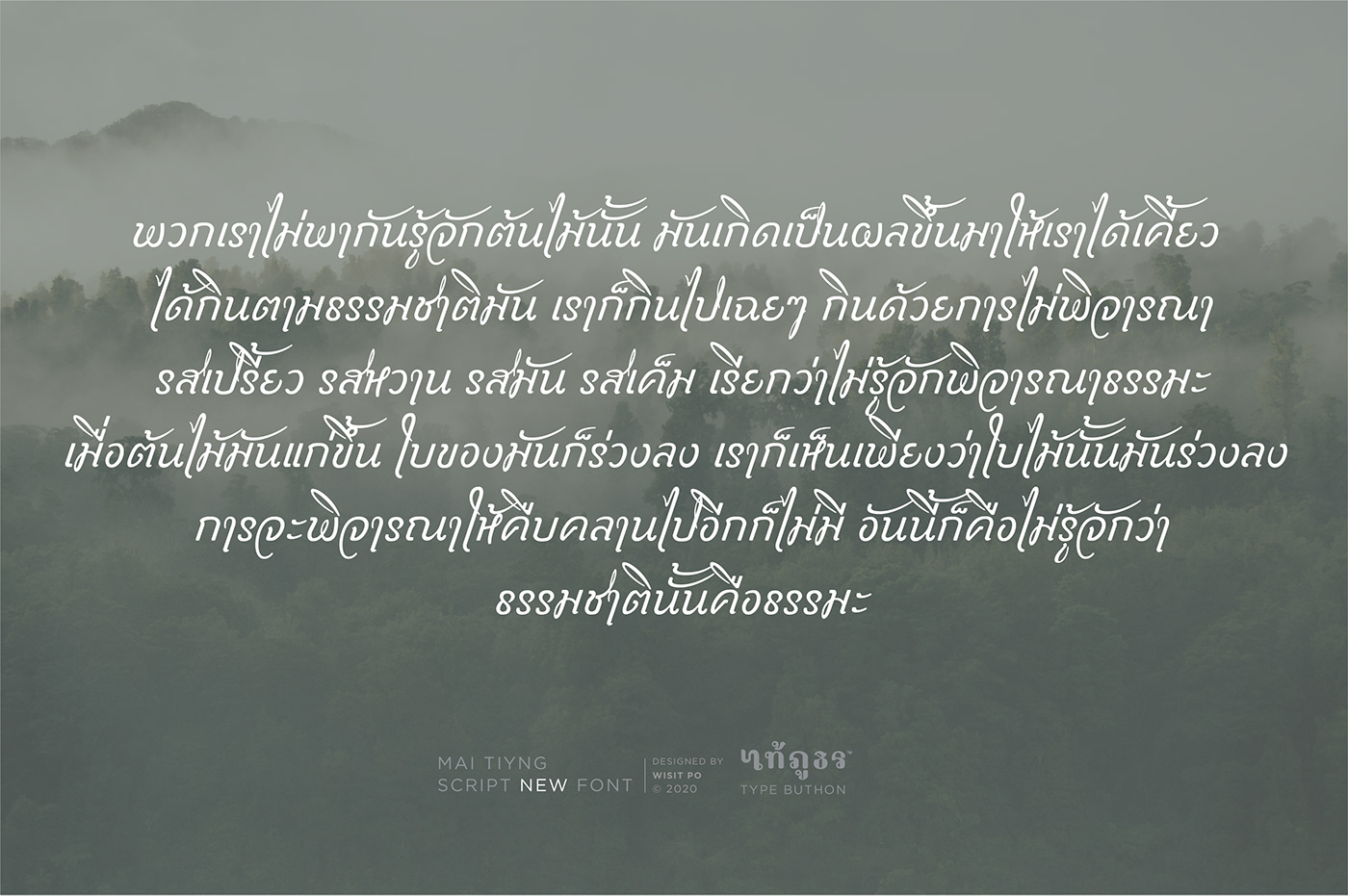
Mi Teiyng Script font is an old script font, inspired by traditional handwriting.
This delicate script font is developed in single weight, a regular version.
Mi Teiyng Script font will also work at larger sizes where it reveals the texture (represent of ink) and paper.
Mi Teiyng Script font was created by Wisit Po.
ฟอนต์ไม่เที่ยงสคริปต์ มี 2 รูปแบบ (2 ไฟล์ฟอนต์) แบบดั้งเดิมหางยาง กับแบบหางปกติ